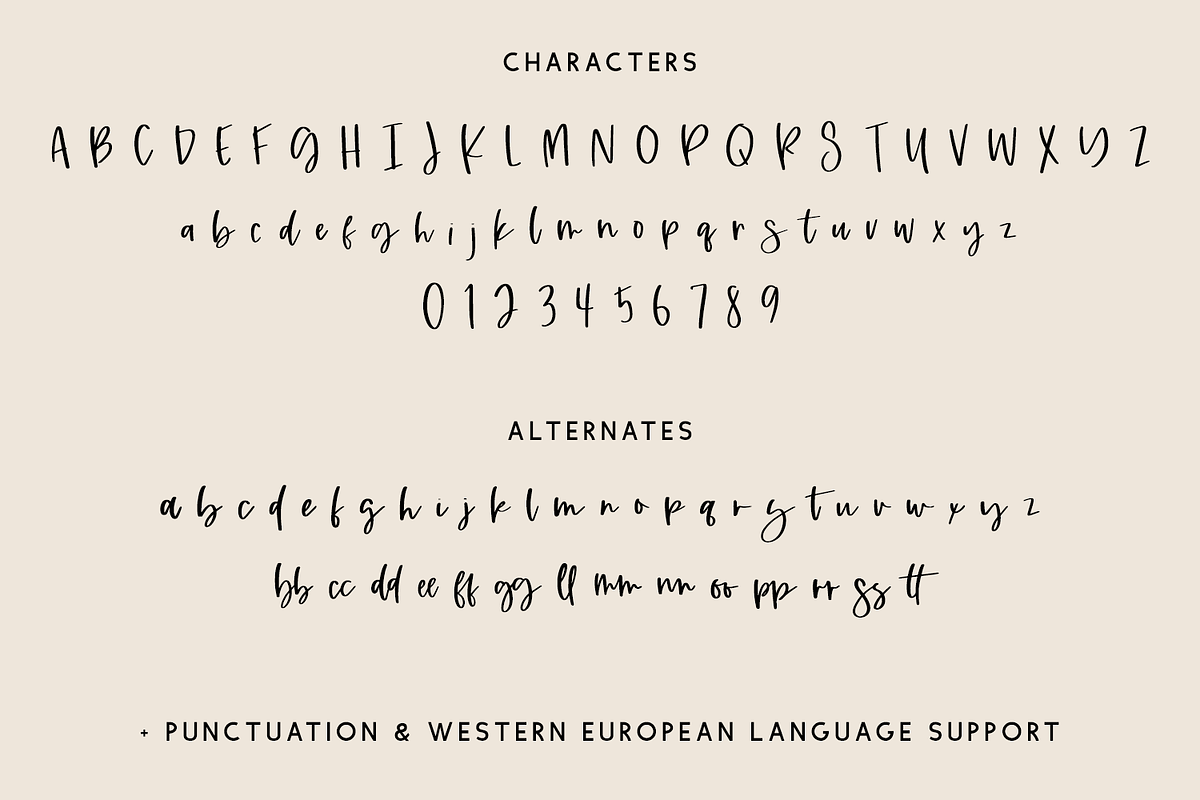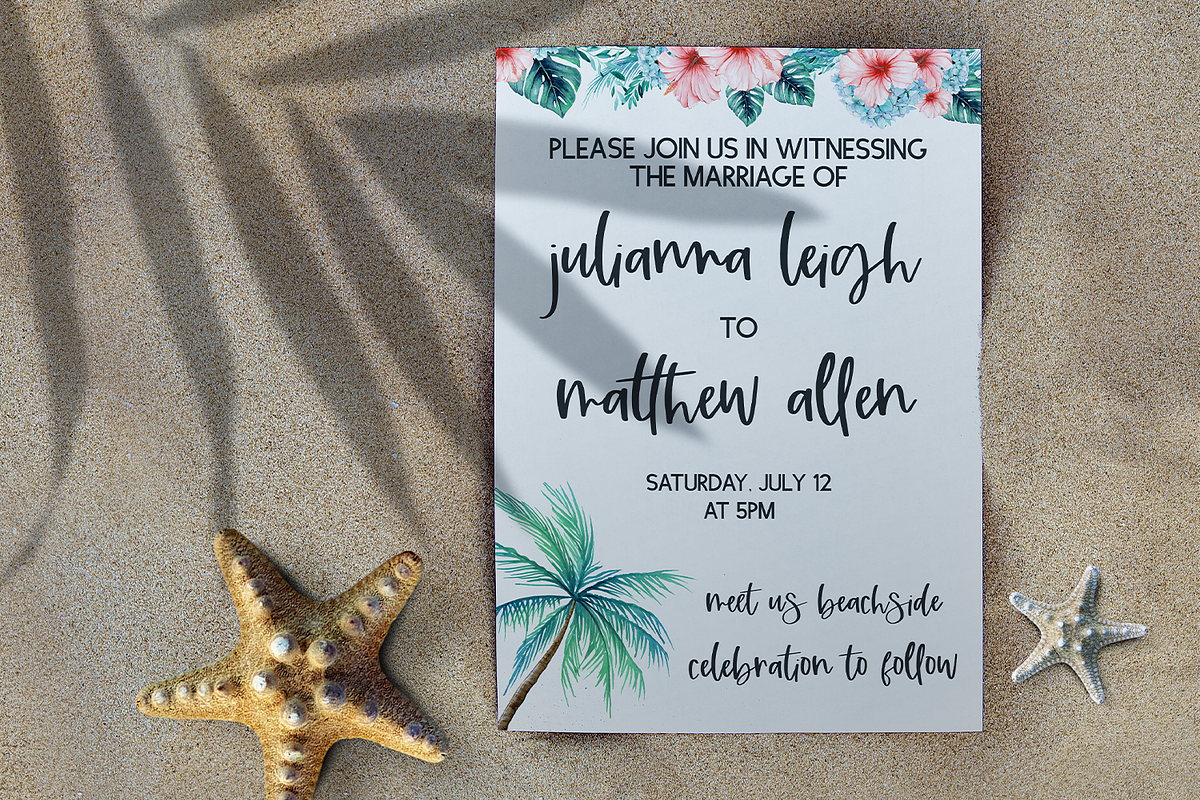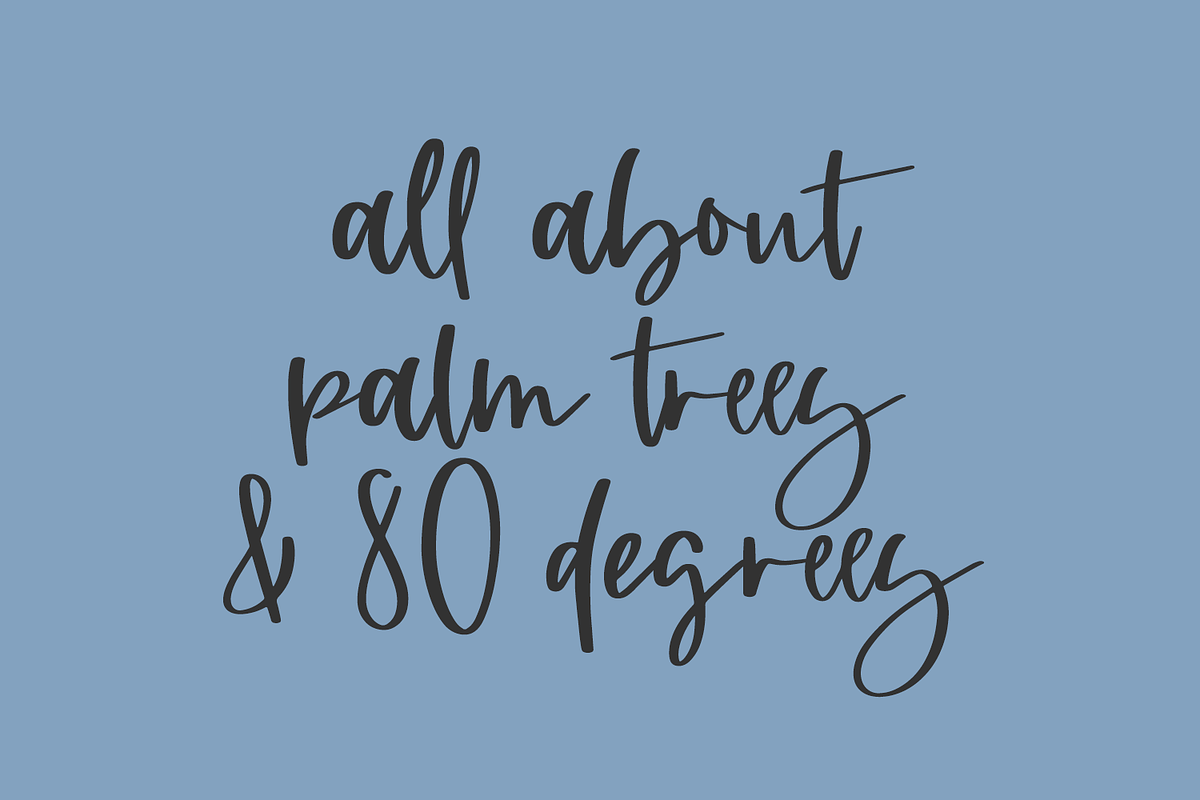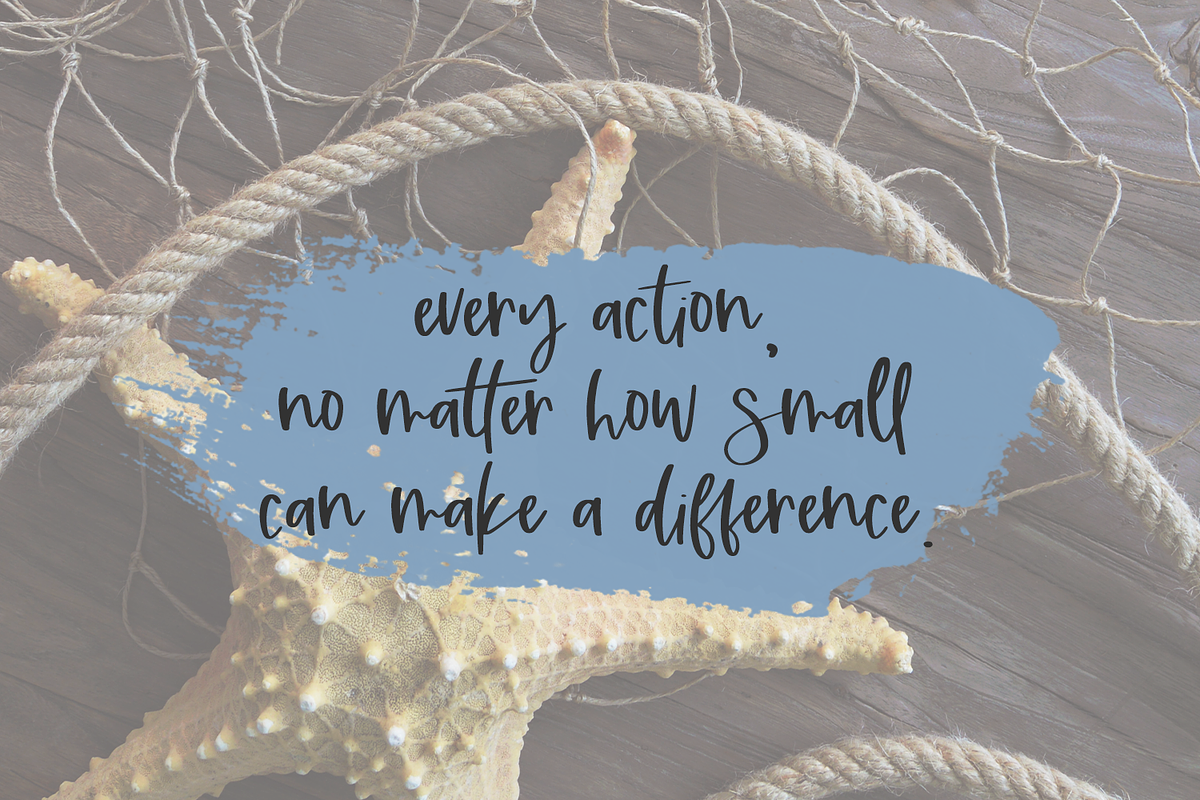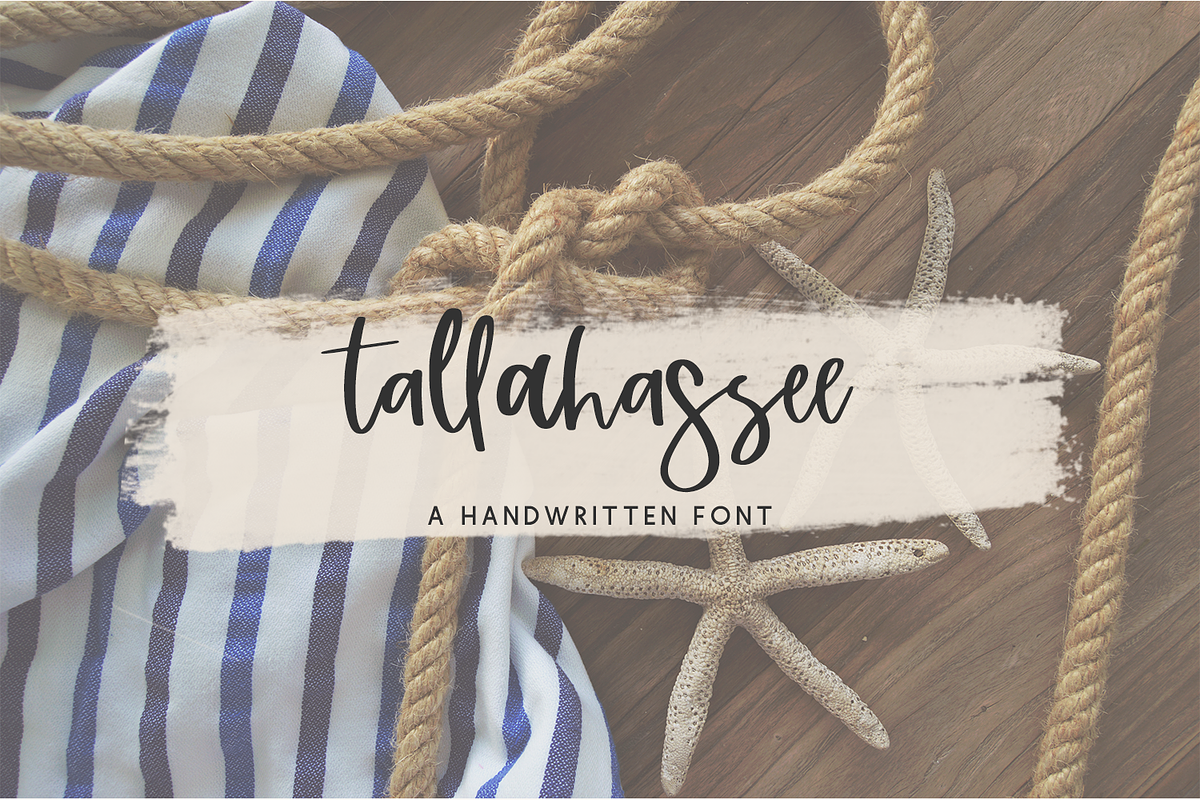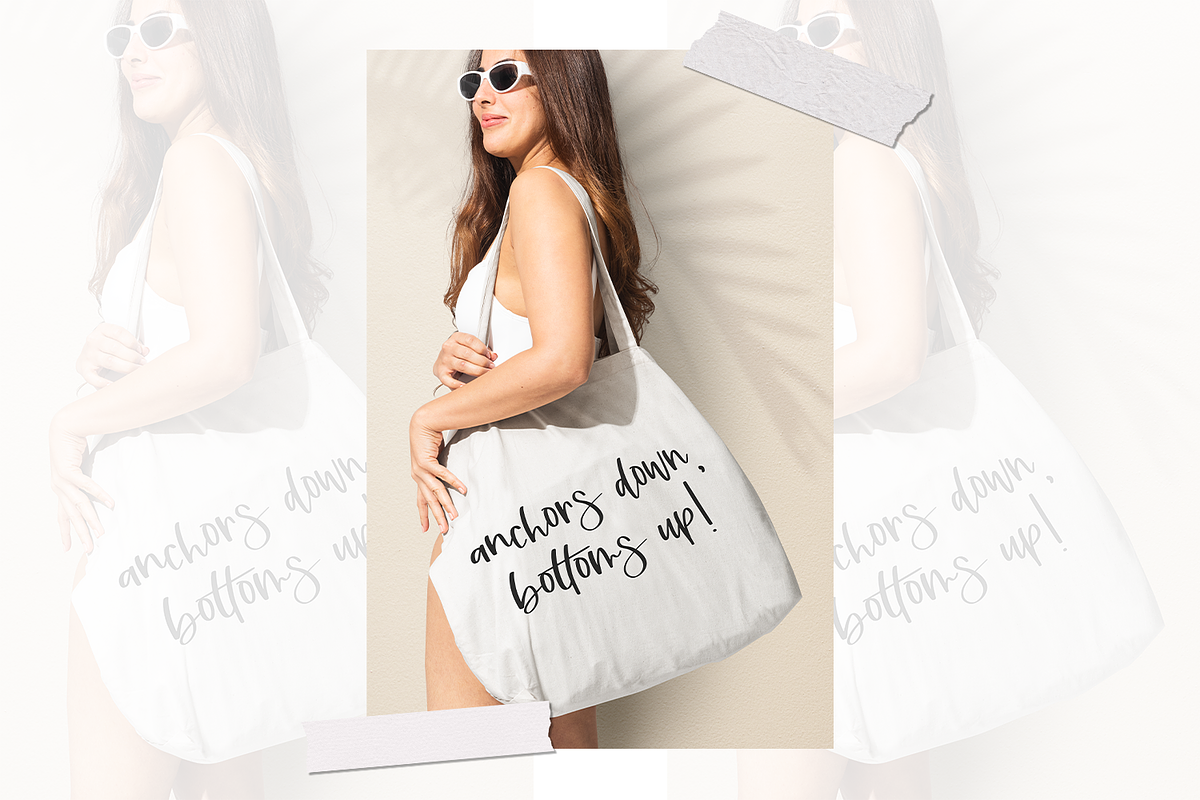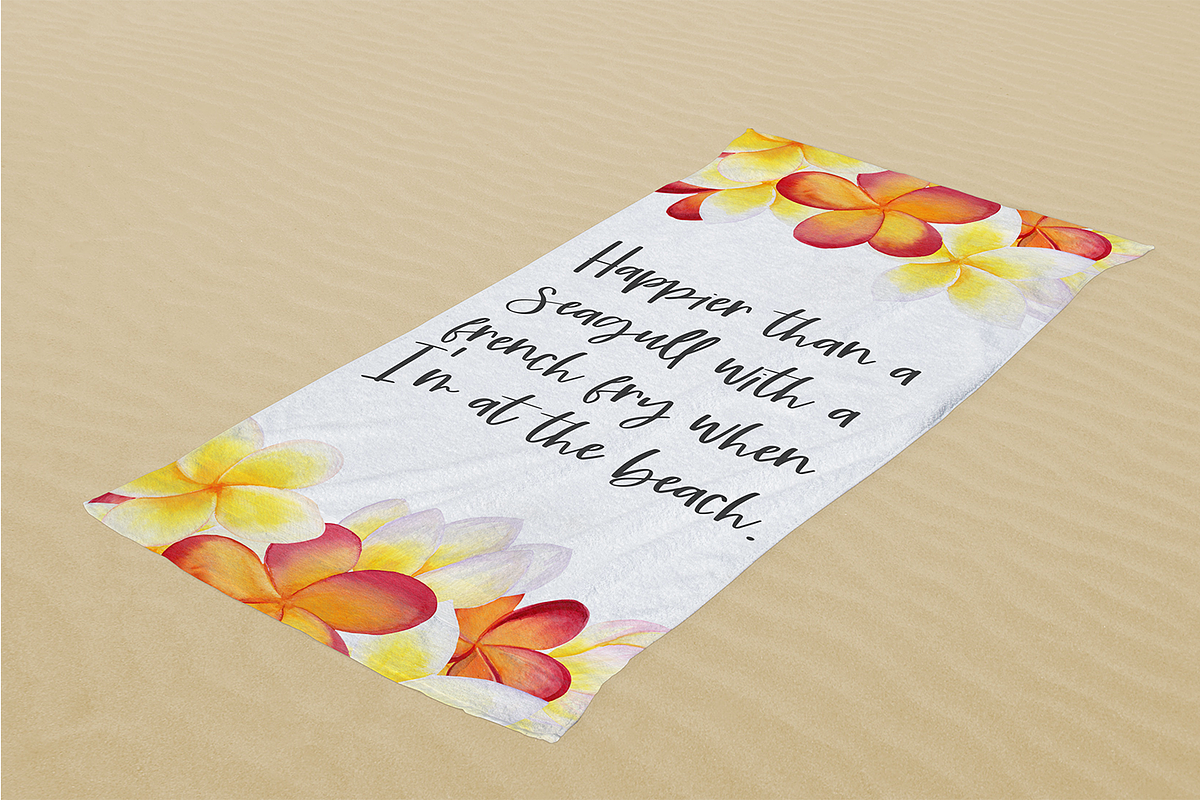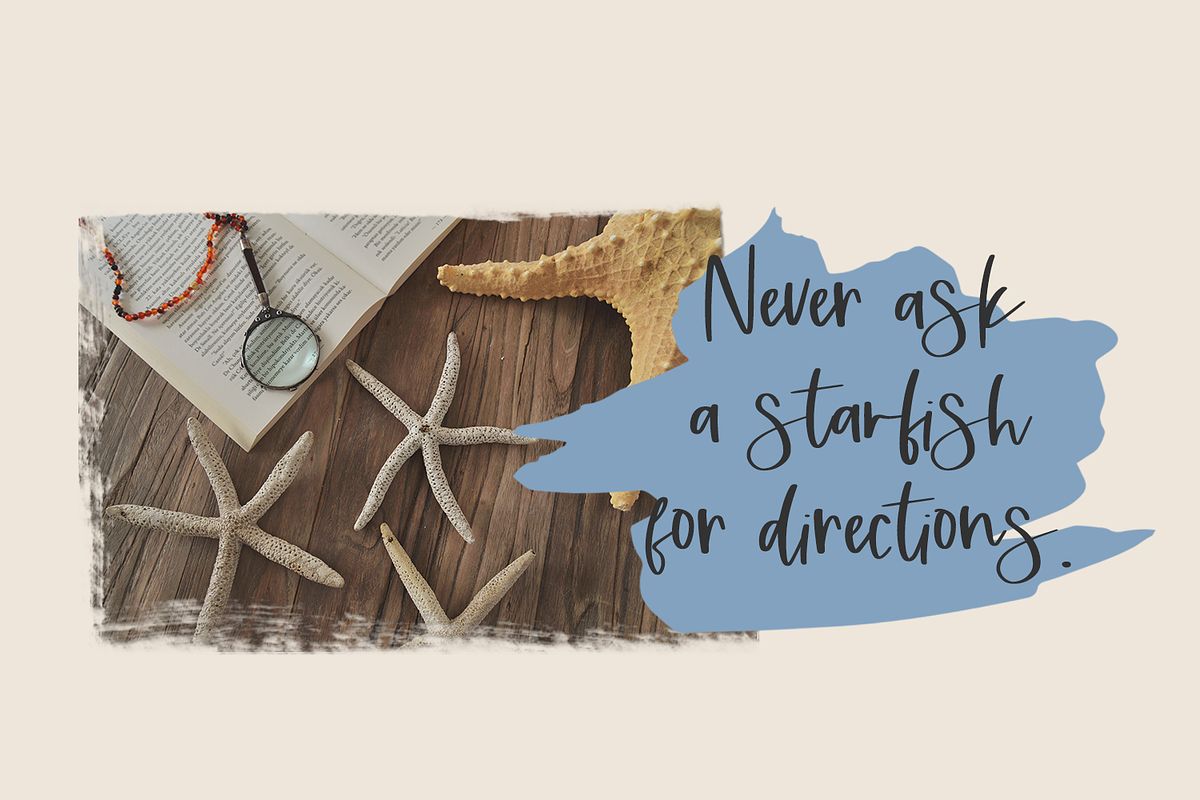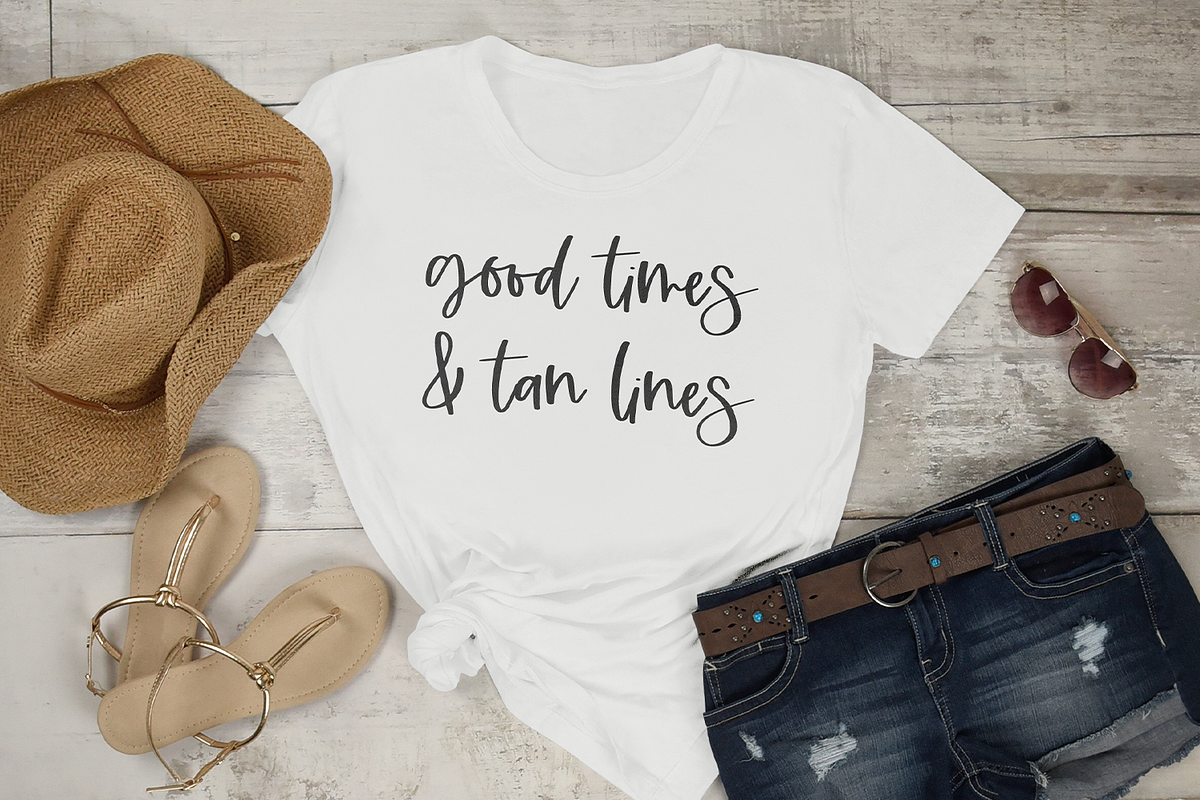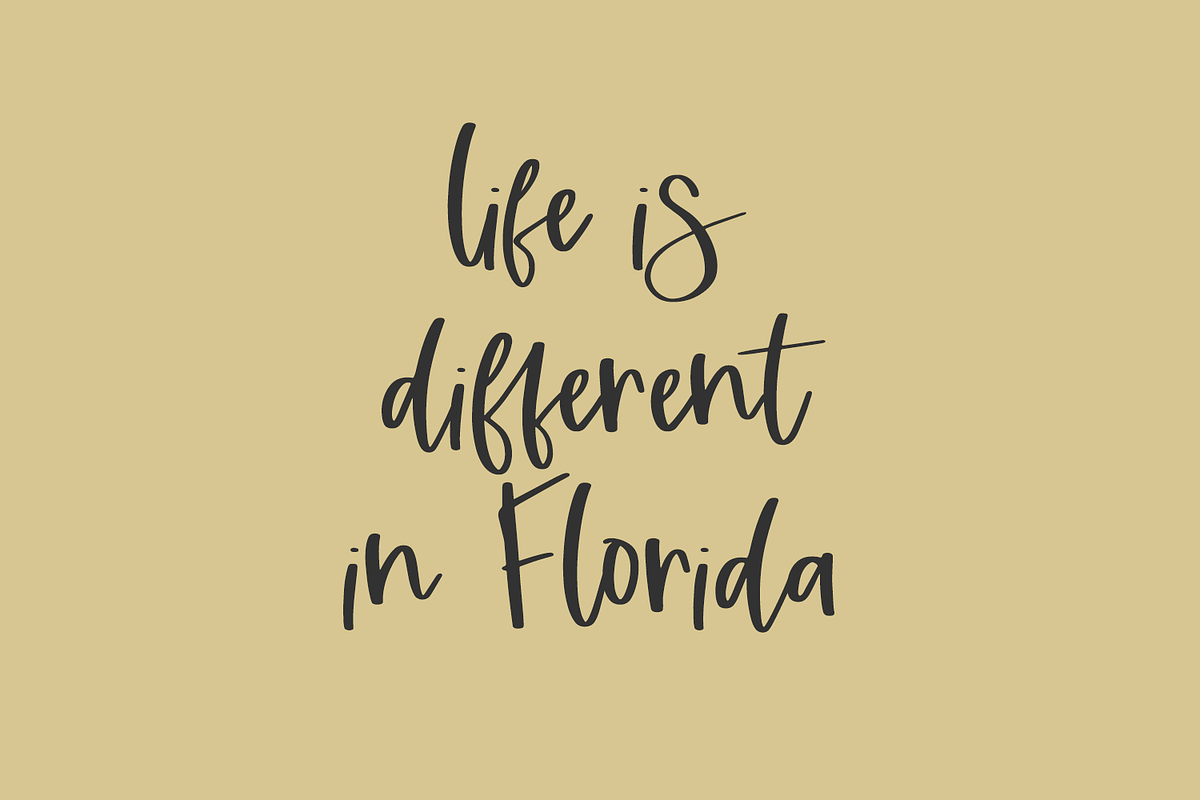
Tallahassee Script
Meet Tallahassee Script, a handlettered modern calligraphy script with a lot of personality. Tallahassee features a selection of alternate characters & ligatures to customize your text, as well as a bouncy signature-style baseline.
- full upper + lowercase characters
- numbers + punctuation
- Western European Language Support
- 26 alternate lowercase characters
- 14 ligatures - bb, cc, dd, ee, ff, gg, ll, mm, nn, oo, pp, rr, ss, tt